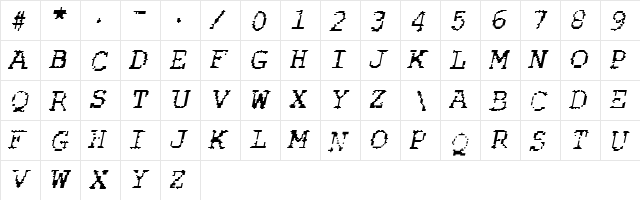
Rubber Biscuit Italic
Design Context for Rubber Biscuit Typeface
Rubber Biscuit is a composed and adaptable typeface that performs quietly and consistently across a wide range of design contexts. The dynamic lean of this cut emphasises speed and emphasis in any layout.
Pro Tip: Use Rubber Biscuit for emphasis, pull quotes, and subheadings where its slanted energy can add rhythm to the layout.